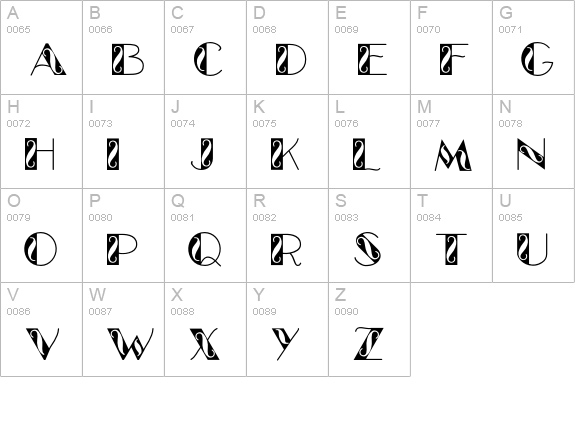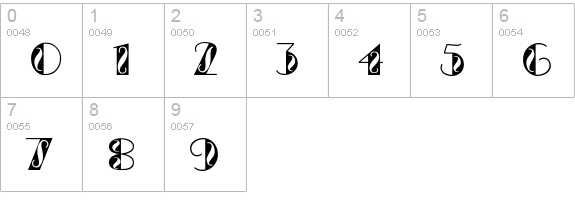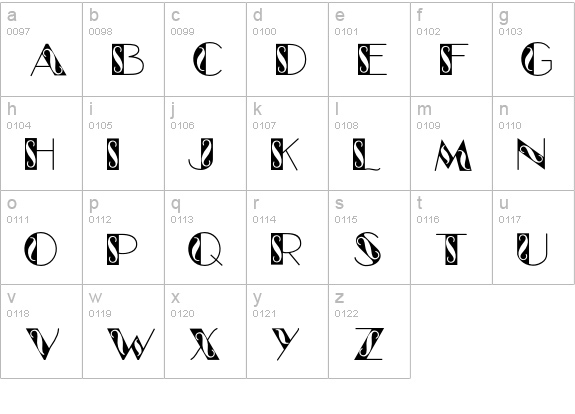
Glamour Font Details
Glamour font is a stunning display typeface that exudes elegance and sophistication. With its sleek lines and stylish curves, this font is perfect for adding a touch of glamour to any design project. Whether you're creating a high-end fashion magazine, luxury branding, or elegant invitations, Glamour font will elevate your creations to new heights. The best part? Glamour font is completely free to download at FontsMarket.com. This means you can access this beautiful typeface without any cost, making it a valuable addition to your font collection. Don't miss out on the opportunity to add a touch of glamour to your designs with this exquisite font that is just a click away.